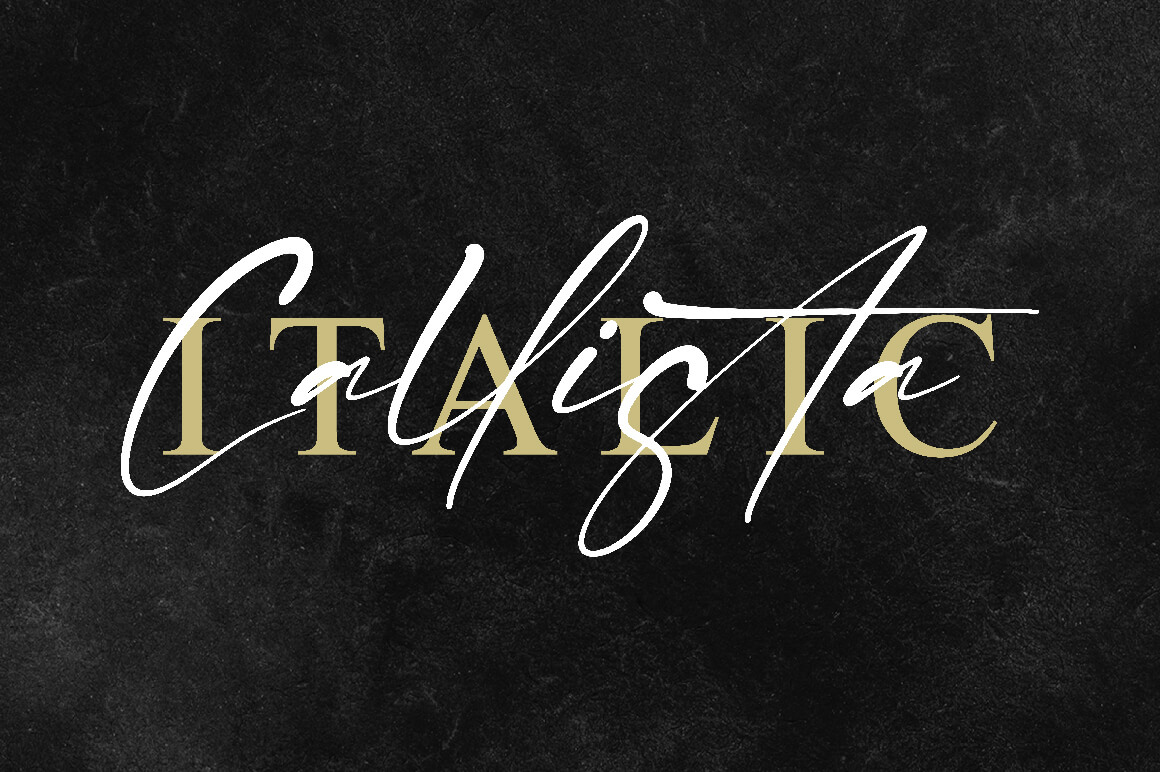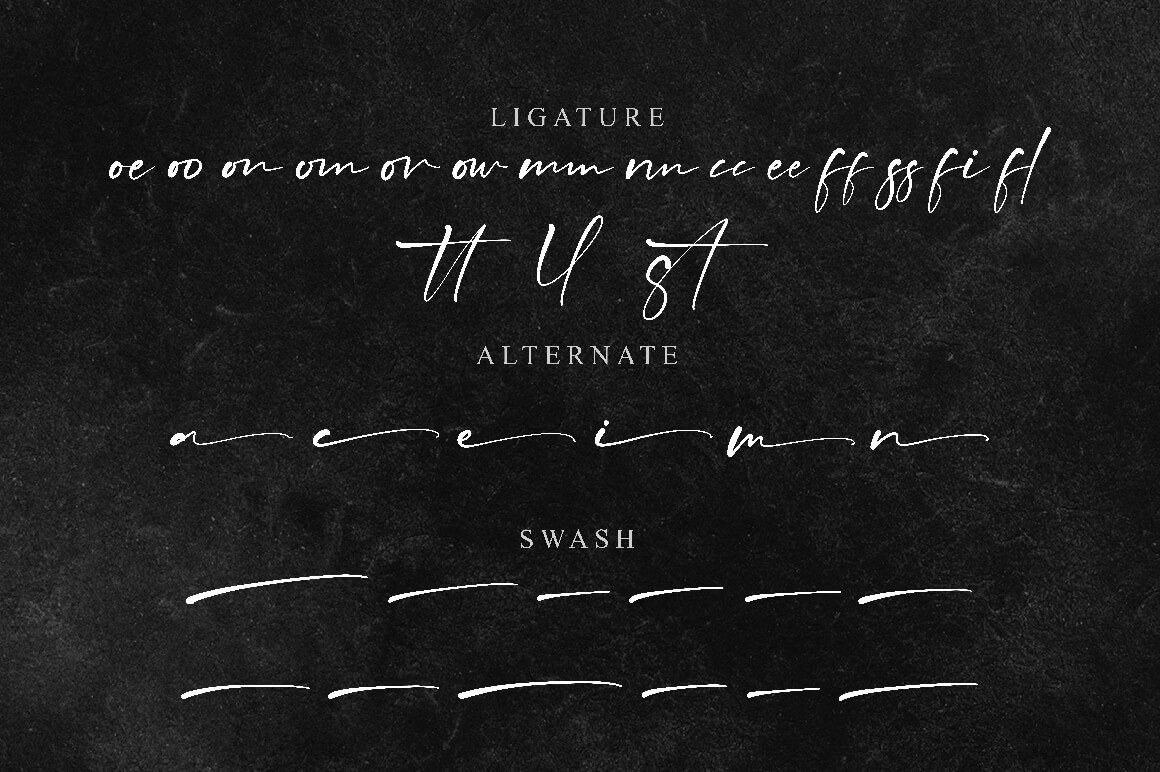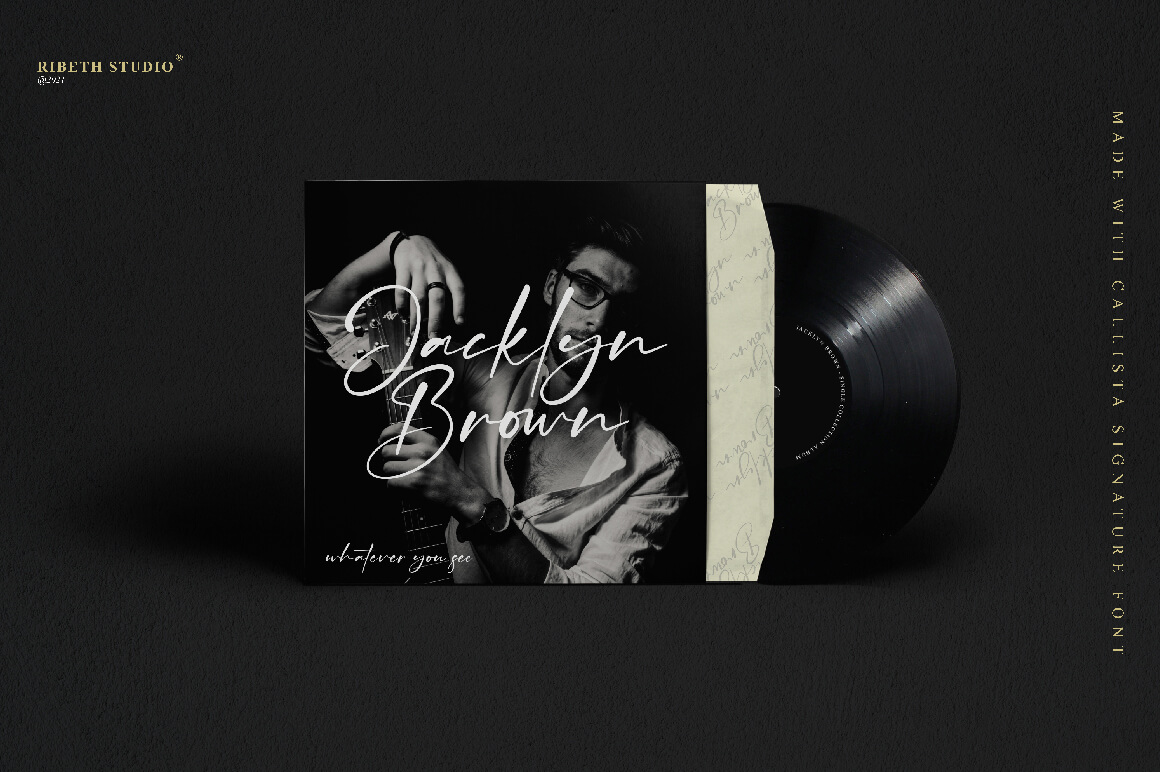
Callista Script 字体是一款英文书法字体,钢笔书法字体
Callista Script 字体介绍
This is a stylish a signature script font with 2 styles : Reguler, Italic and includes full set of uppercase and lowercase letters, multilingual symbols, numerals, punctuation, alternates, swash and ligatures.
The font is perfect for branding, wedding invites and cards, christmas card, branding, logos, product packaging, invitation, qoutes, t-shirt, label poster this is perfect for branding, logos, invitation and more.
Callista Features :
– Multilanguange
– Ligatures
– Alternates
– Swash